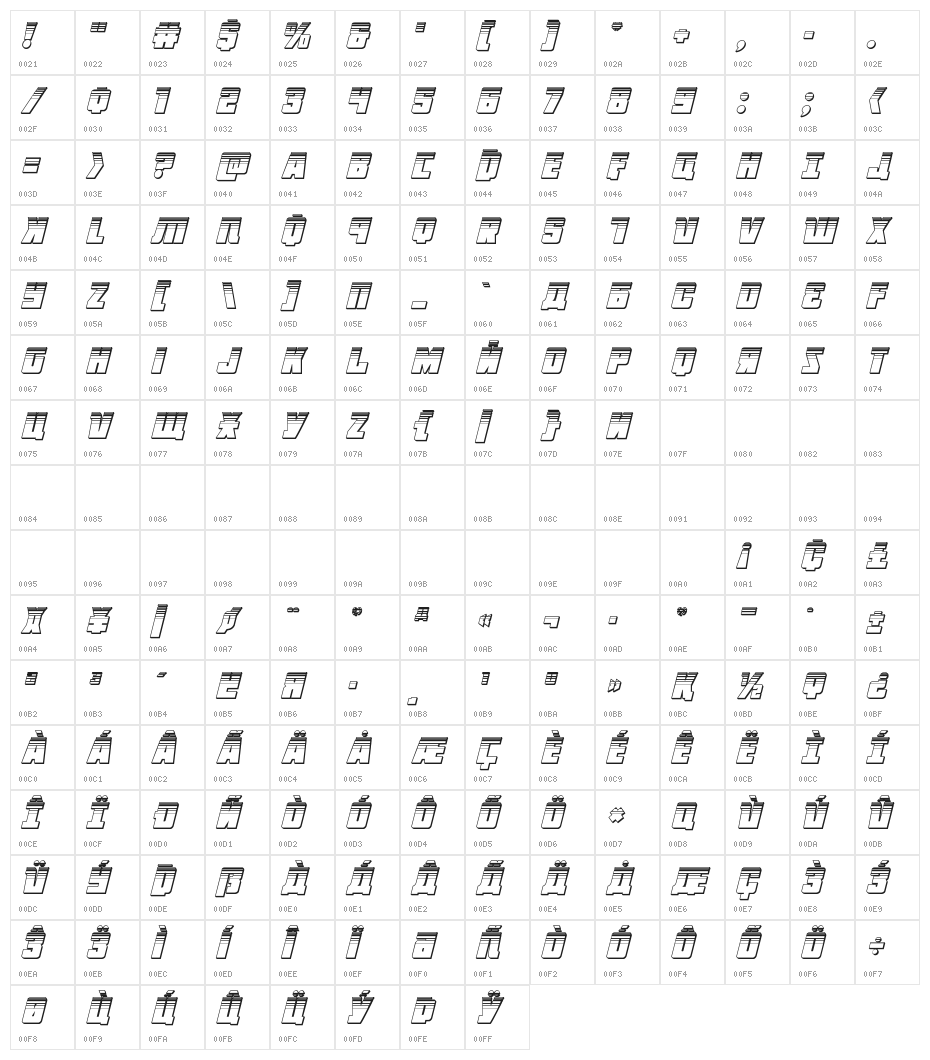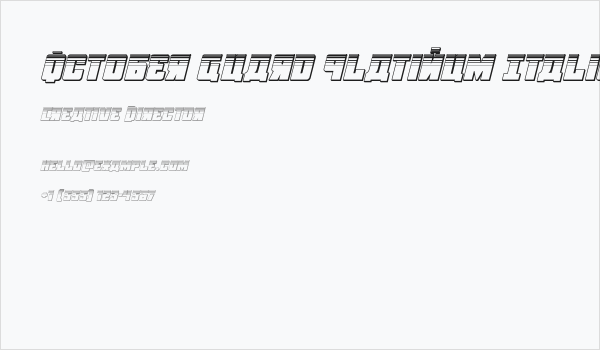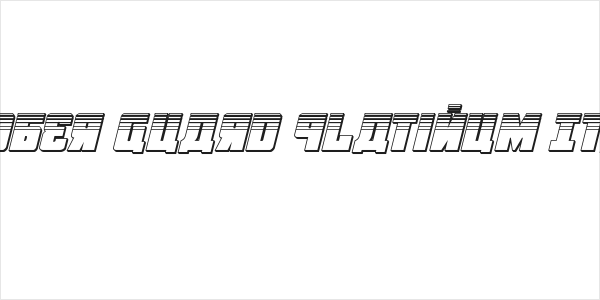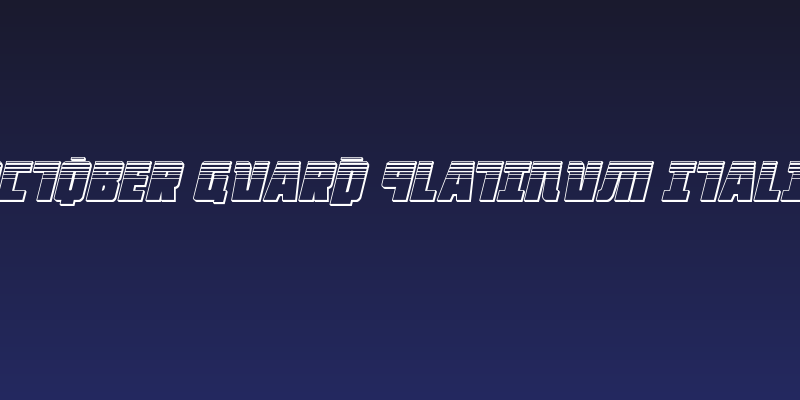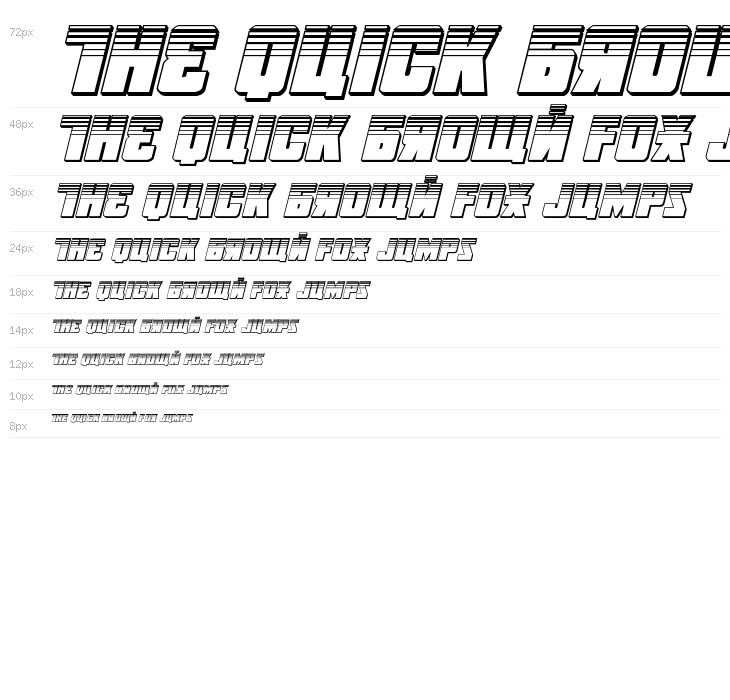
October Guard Platinum Italic Font
October Guard Platinum Italic Description
This font features a bold, three-dimensional design with a strong, futuristic aesthetic. The letters are capitalized and have a distinct shadow effect that gives them depth and a sense of movement. The geometric shapes and sharp angles contribute to a modern, industrial feel. The font is highly stylized, making it suitable for attention-grabbing headlines or logos. The characters are evenly spaced, ensuring readability despite their complex design. The numbers and special characters maintain the same bold and dynamic style, providing a cohesive look across all elements.
| Proposed Projects | Ideal for sci-fi themed projects, video game titles, tech company logos, or any design requiring a modern and bold statement. |